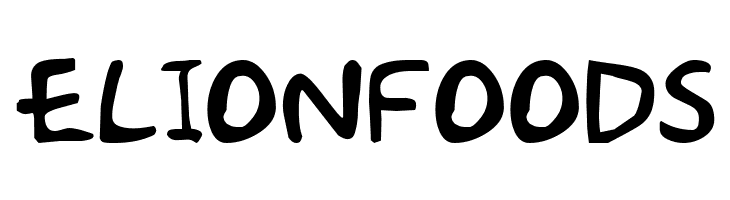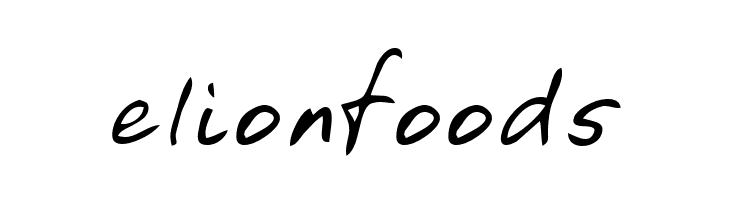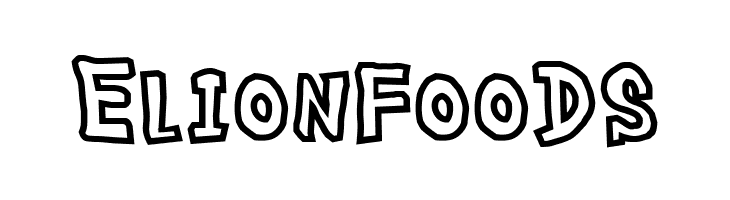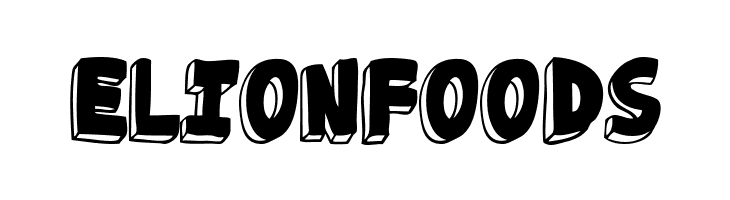
( Fonts by Dennis Ludlow - Sharkshock )
A playful, bold handwritten font with a whimsical and casual style.
( Fonts by Altsys Metamorphosis )
A casual, handwritten font with a natural, flowing style.
( Fonts by Daniel Gauthier )